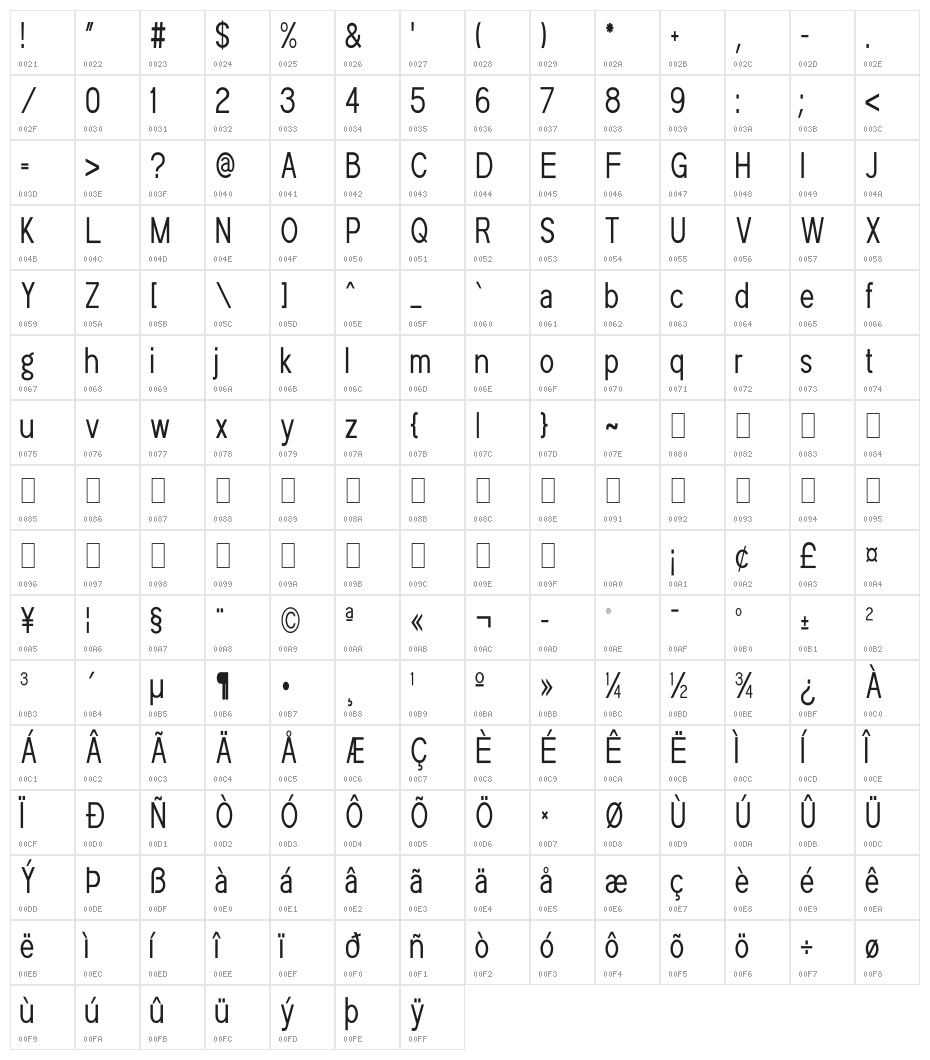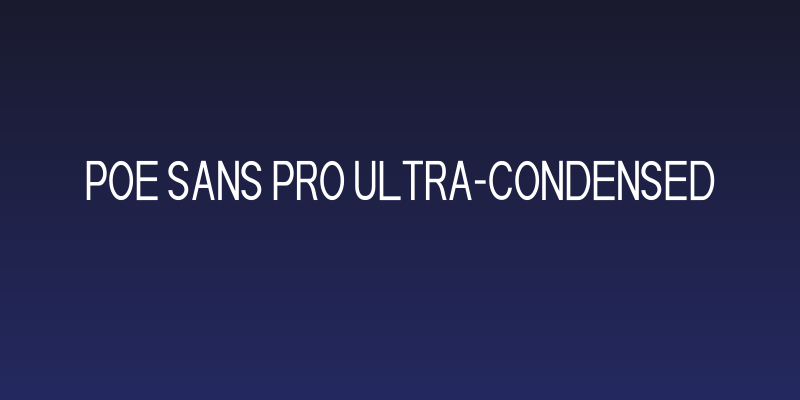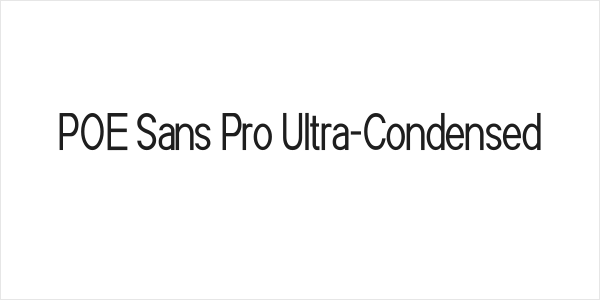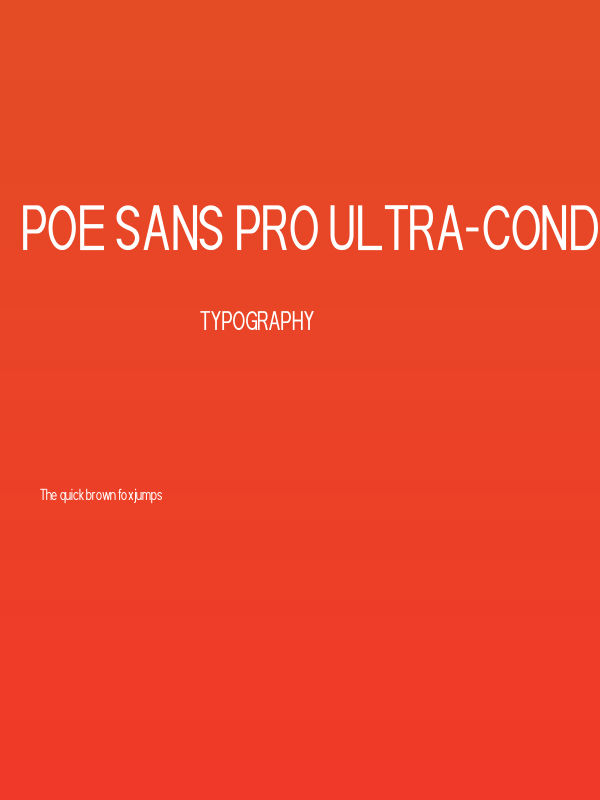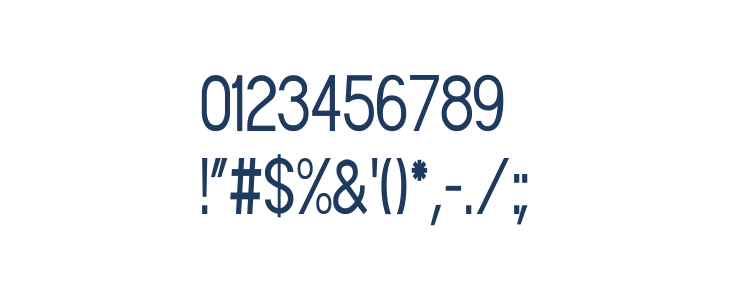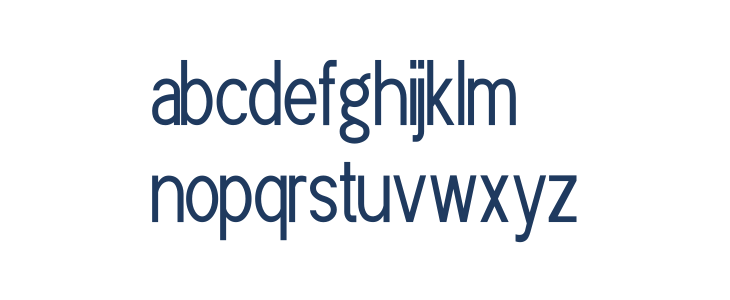
POE Sans Pro Ultra-Condensed Font
POE Sans Pro Ultra-Condensed Description
This typeface is a sleek, ultra-condensed sans-serif font that exudes a modern and minimalist aesthetic. The characters are tall and narrow, providing a clean and efficient use of space. The uniform stroke width across all characters contributes to a consistent and harmonious appearance. The uppercase and lowercase letters maintain a balanced proportion, while the numerals are clear and legible. Special characters are well-integrated, ensuring versatility in various applications. The overall design is straightforward, making it suitable for contemporary design projects that require a touch of elegance and simplicity.
| Use Case | Headlines, Logos, Web design |
| Proposed Projects | Ideal for use in branding, editorial design, advertising, and web design where space efficiency and modern aesthetics are desired. |